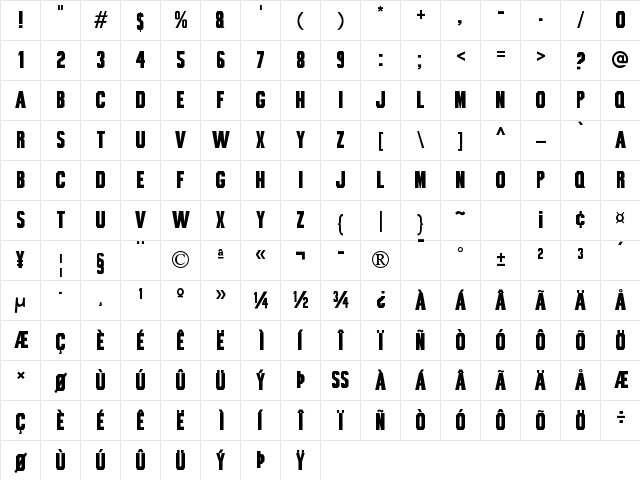
Bou Collegiate Regular
Design Context for Bou Collegiate Typeface
Bou Collegiate takes a measured approach to typography — its balanced proportions and neutral character make it a reliable workhorse for both digital and print work.